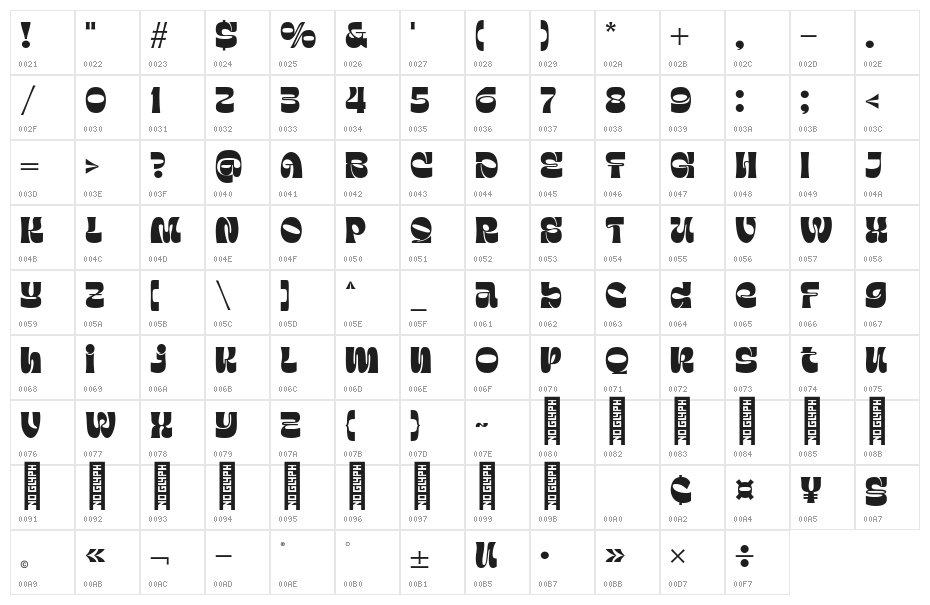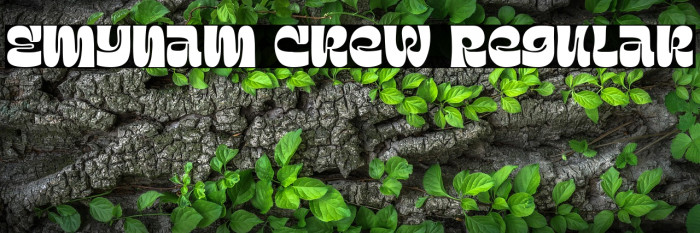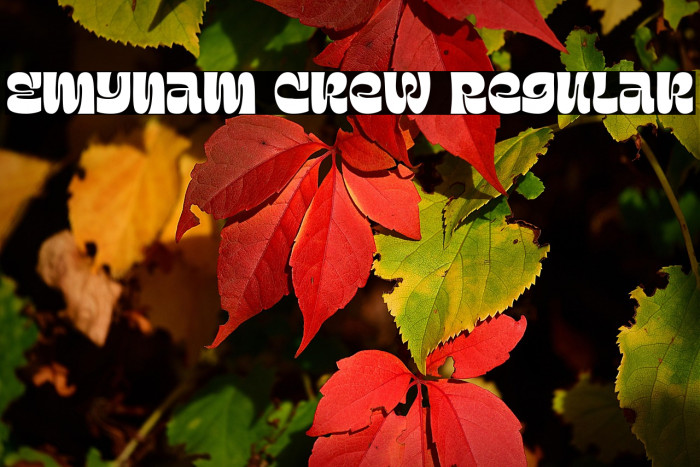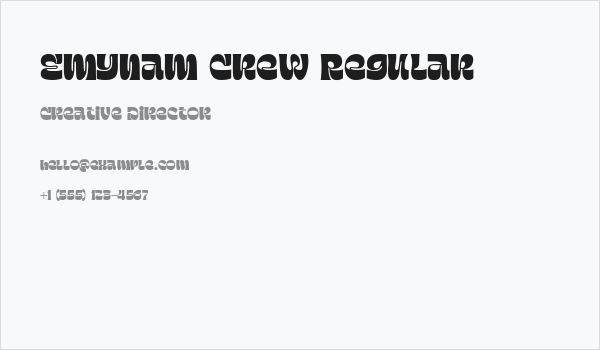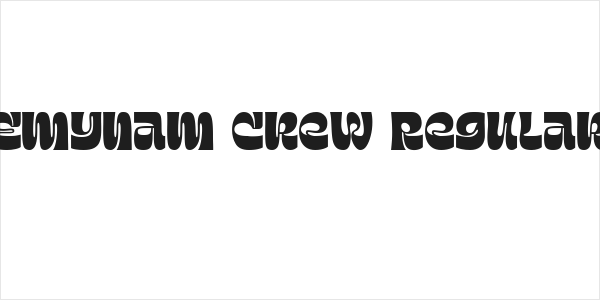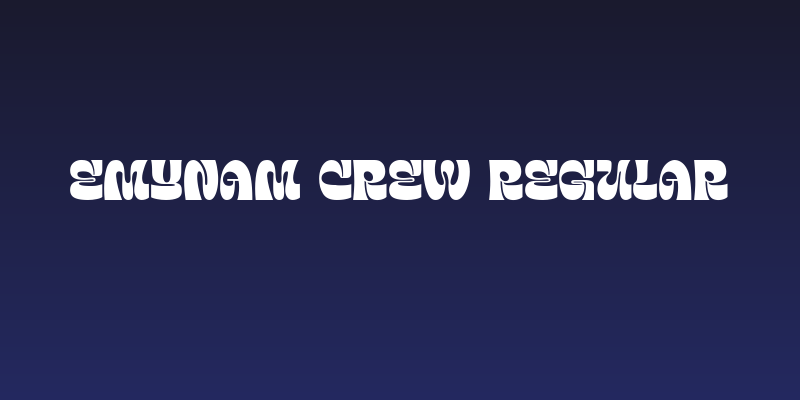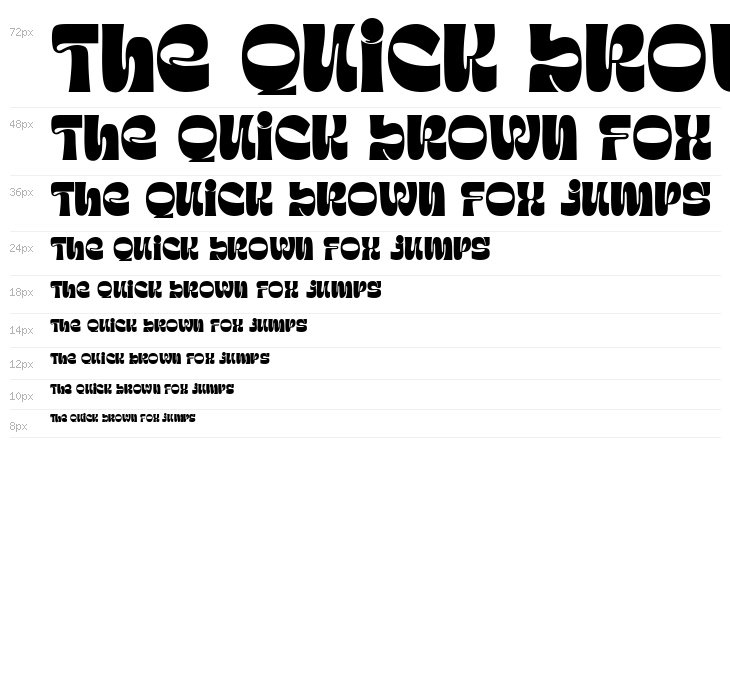
Emynam Crew Regular Font
Emynam Crew Regular Description
This font features a bold and distinctive style with a modern, geometric design. The characters are crafted with thick strokes and unique shapes, creating a striking visual impact. The uppercase and lowercase letters maintain a consistent style, with rounded edges and a playful, artistic flair. The numerals and special characters follow the same bold and creative design, making them stand out. This font's unique appearance makes it suitable for eye-catching designs and creative projects.
| Proposed Projects | Ideal for posters, logos, branding, and creative design projects that require a bold statement. |